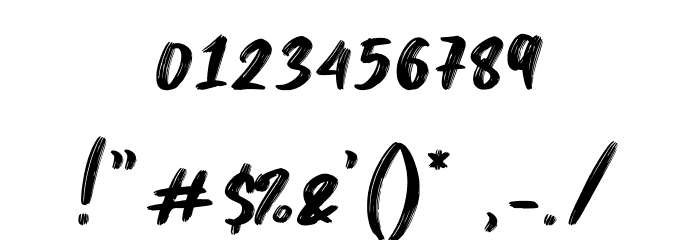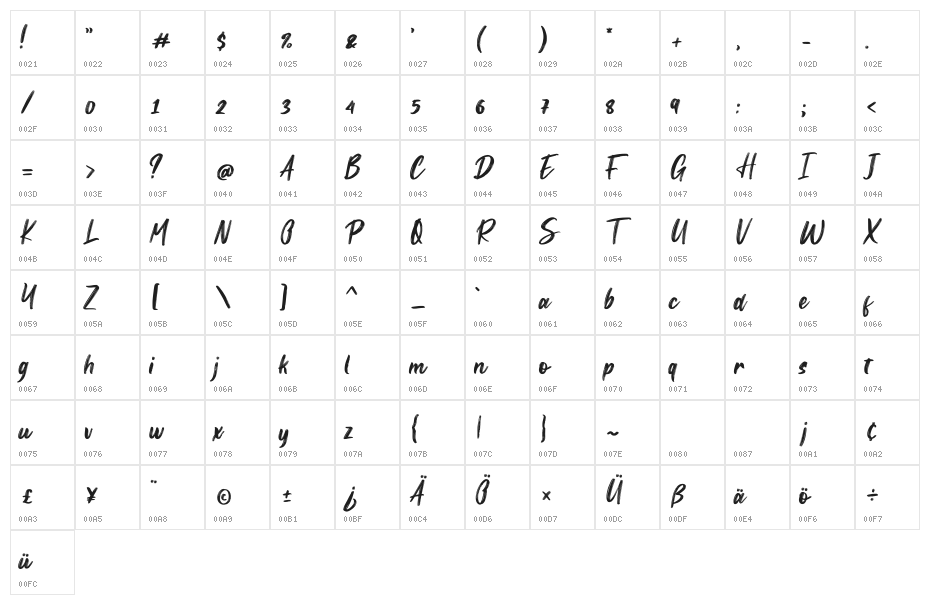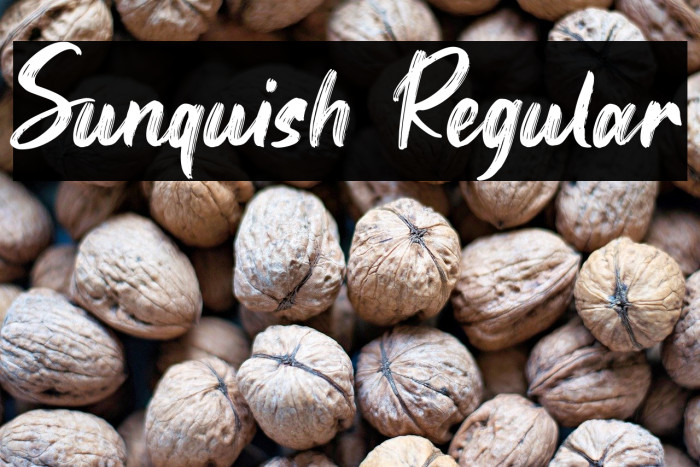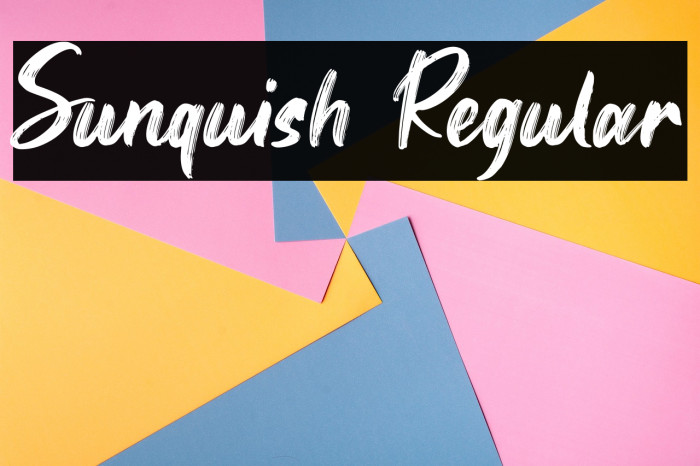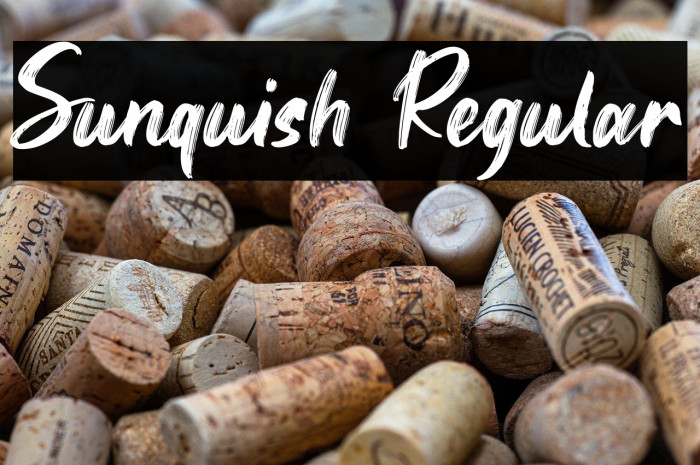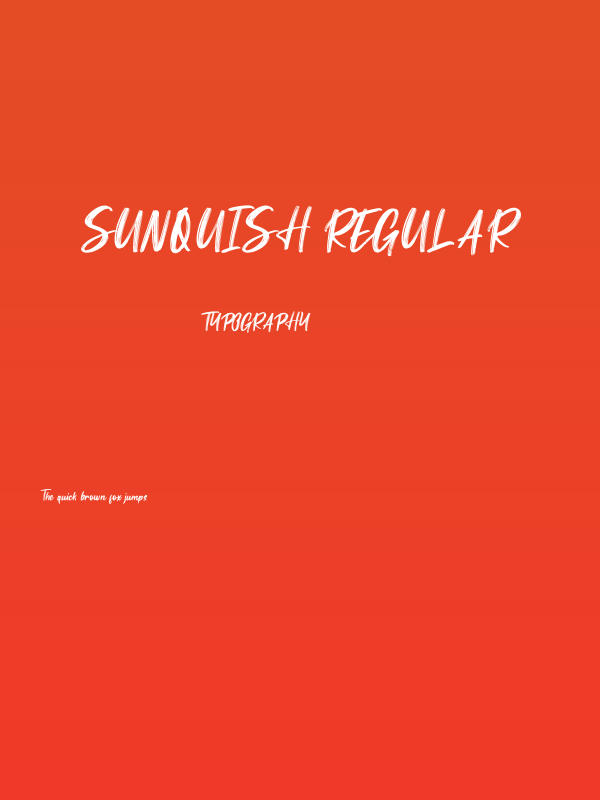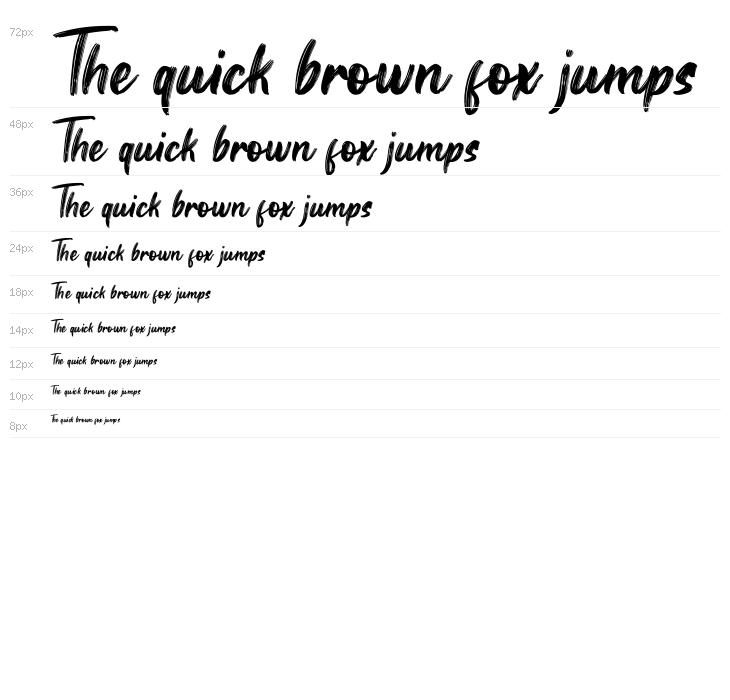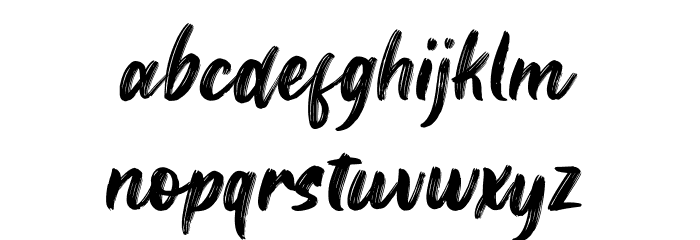
Sunquish Regular Font
Sunquish Regular Description
This font features a dynamic and energetic brush script style, characterized by its bold and expressive strokes. The letters have a hand-painted appearance, with varying thicknesses that add a sense of movement and fluidity. The uppercase letters are tall and commanding, while the lowercase letters maintain a consistent flow, enhancing readability. The numerals and special characters follow the same lively aesthetic, making them suitable for creative and artistic projects. The overall design exudes a modern and informal vibe, perfect for capturing attention and conveying a sense of creativity.